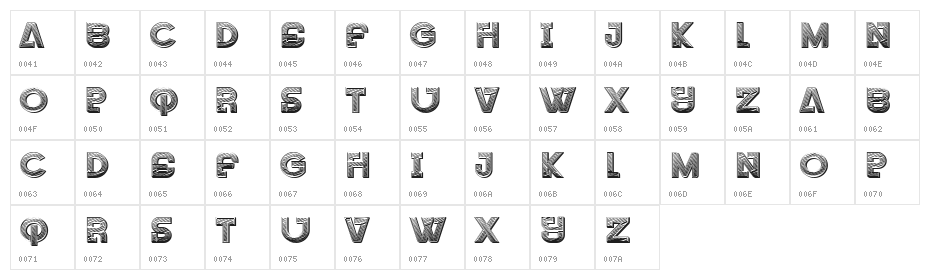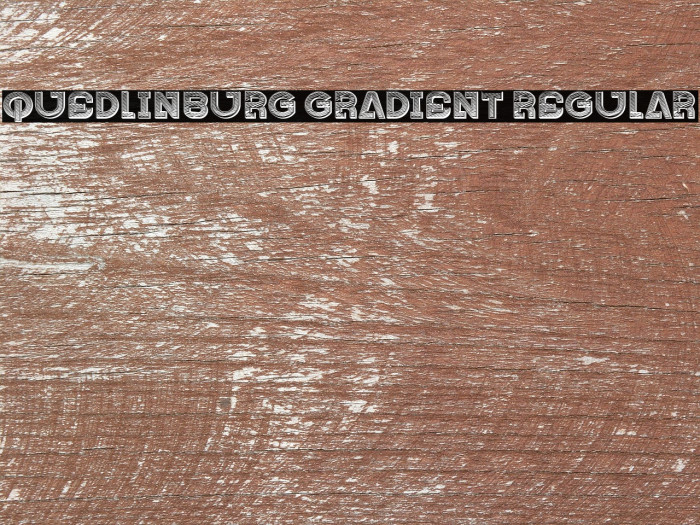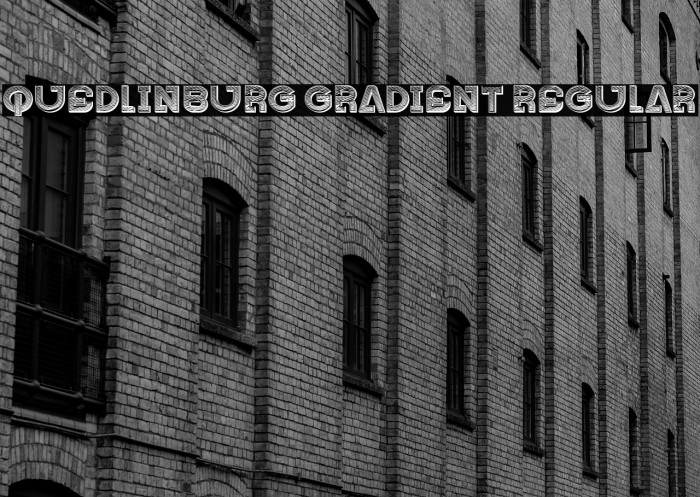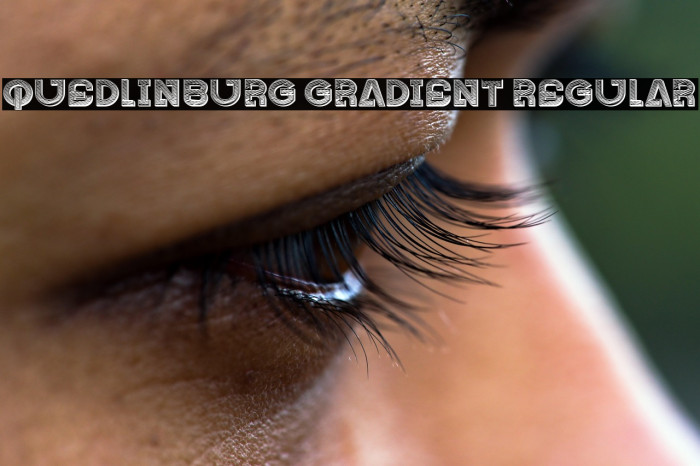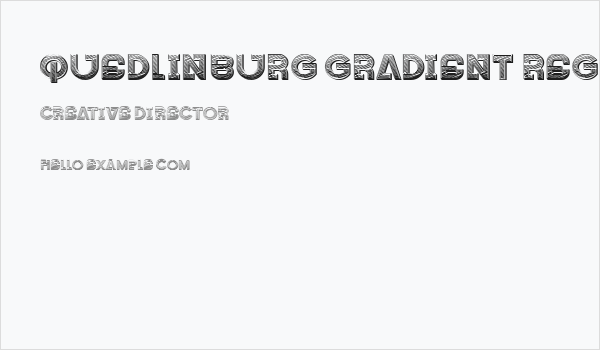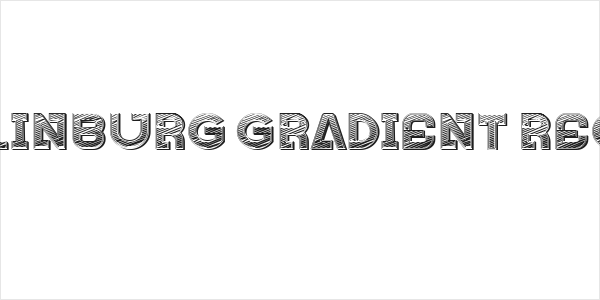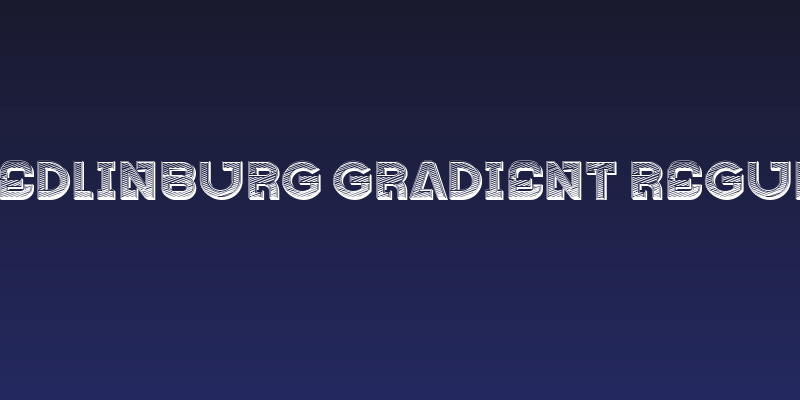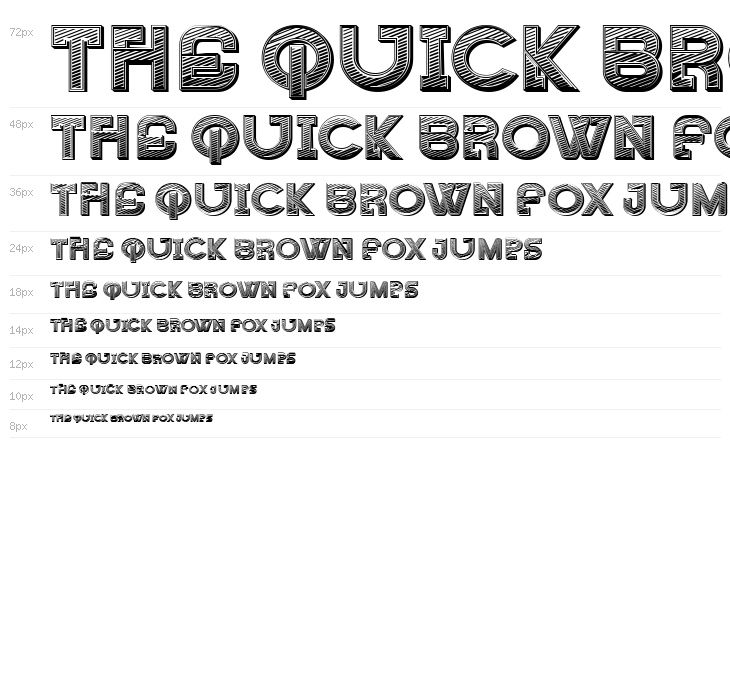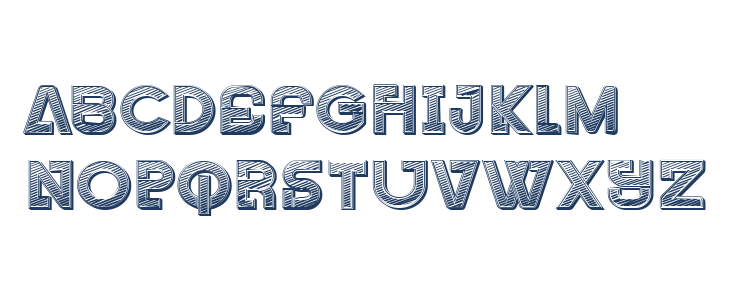
Quedlinburg Gradient Regular Font
Quedlinburg Gradient Regular Description
This font features a bold, decorative style with a unique gradient effect created by horizontal lines within each character. The letters are uppercase and have a strong, geometric structure, giving them a modern and eye-catching appearance. The design incorporates a three-dimensional look, making it suitable for standout text in various creative projects. The consistent line pattern adds texture and depth, enhancing the visual appeal. Its distinct style makes it ideal for use in branding, posters, and other design elements where a bold statement is desired.
| Proposed Projects | Ideal for branding, posters, headlines, and creative design projects. |